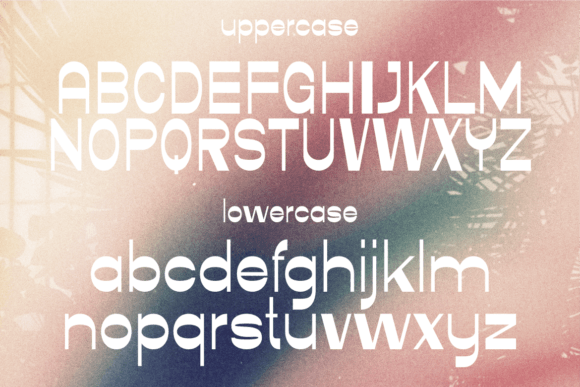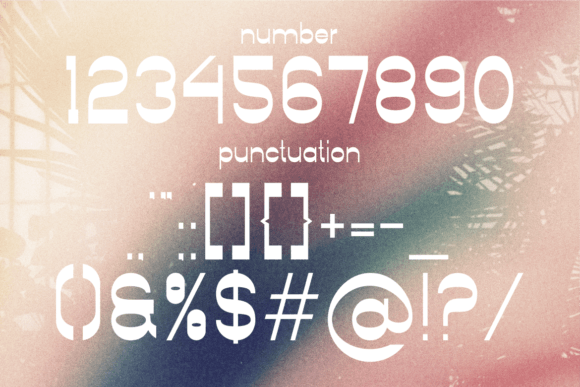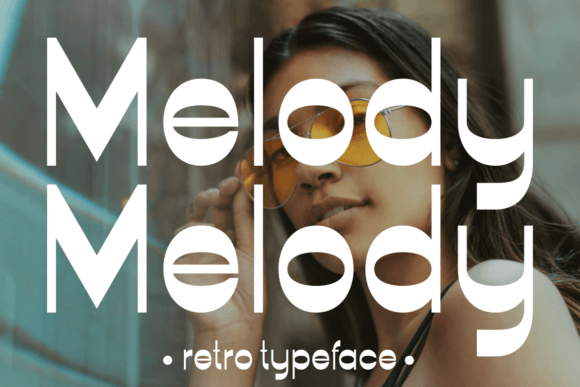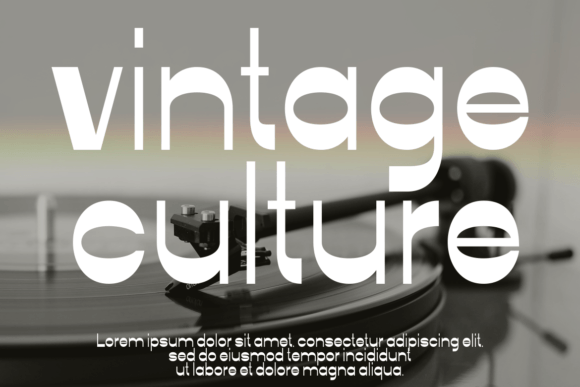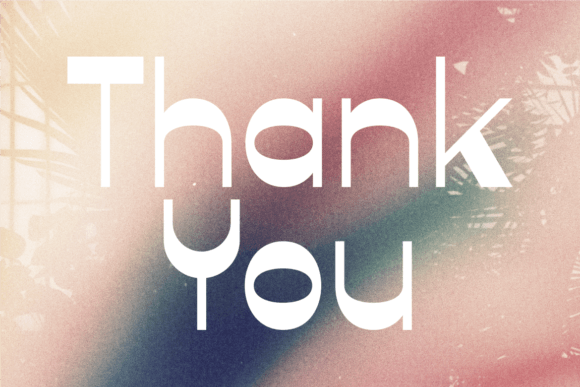
Introduction to Lorem Monreal Font Font
Fonts play a crucial role in design, and the Lorem Monreal Font font is a typeface that brings both character and versatility to any project. Whether you’re working on a branding project, a website, or a print design, the Lorem Monreal Font font offers a unique style that can elevate your work.
**Lorem Monreal** is an authentic font with a retro look that is perfect for professional needs and product branding.
This font is suitable for any branding project like quotes, logos, blog headers, posters, ribbons, letters, invitations, stationery, etc… This font is designed to be versatile and flexible so it can be used in a variety of projects and mediums extraordinary in a variety of contexts.
Key Features of Lorem Monreal Font Font
Why Choose Lorem Monreal Font Font?
The Lorem Monreal Font font is more than just a typeface – it’s a design tool that helps you communicate your message with style and clarity. Its unique character set and versatile design make it suitable for a wide range of applications, from elegant invitations to bold headlines.
With its carefully crafted letterforms and balanced proportions, the Lorem Monreal Font font ensures readability and visual appeal across all mediums.
What makes Lorem Monreal Font font special?
The Lorem Monreal Font font stands out with its unique design, exceptional readability, and versatility across various design applications.